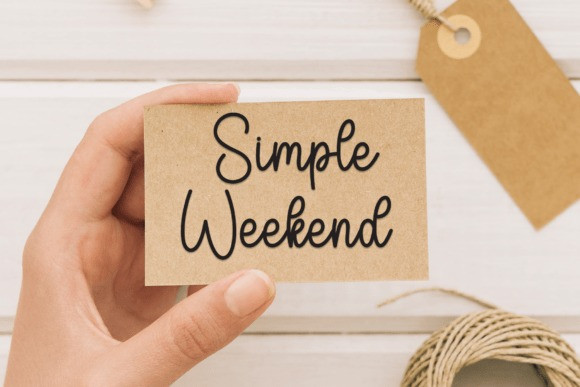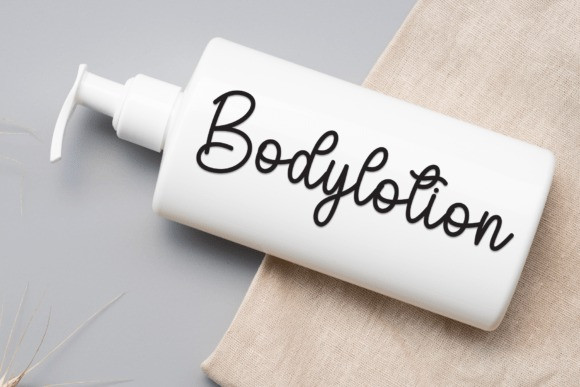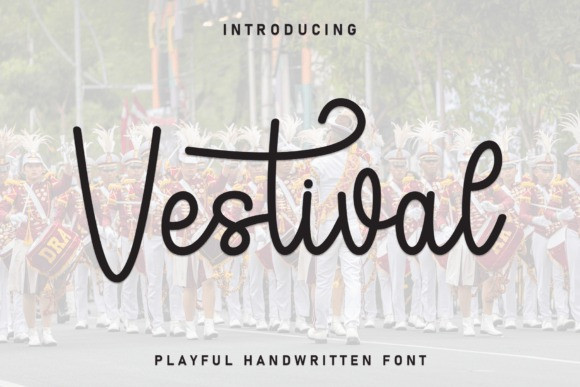
Vestival Handwriting Font
Vestival Handwriting Font a remarkably personable and delightful handwritten display font: guaranteed to infuse warmth and charm into your creative projects. With its adorable and playful aesthetic, this font is perfectly tailored for crafting wedding invitations, greeting cards, or any design flourishing with a sprinkle of fun. An enticing amalgamation of sweet and friendly, it has the unique ability to turn the ordinary into something truly enchanting!